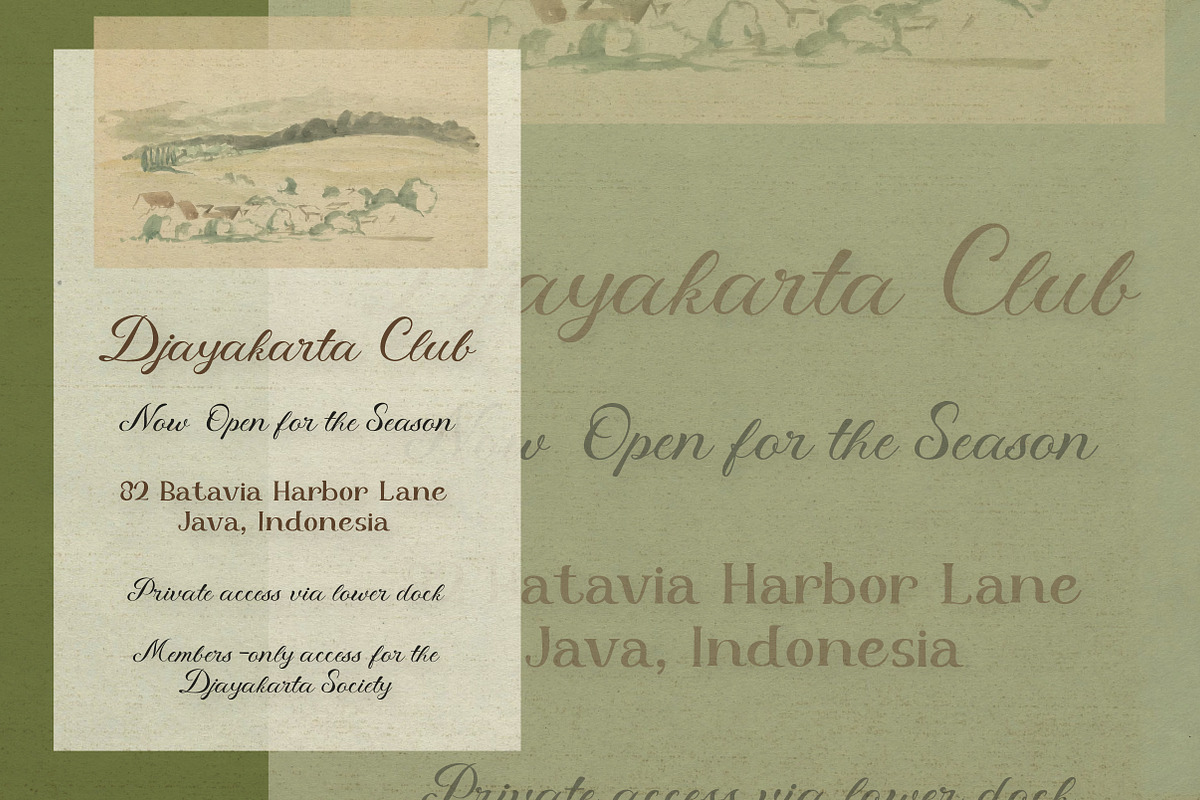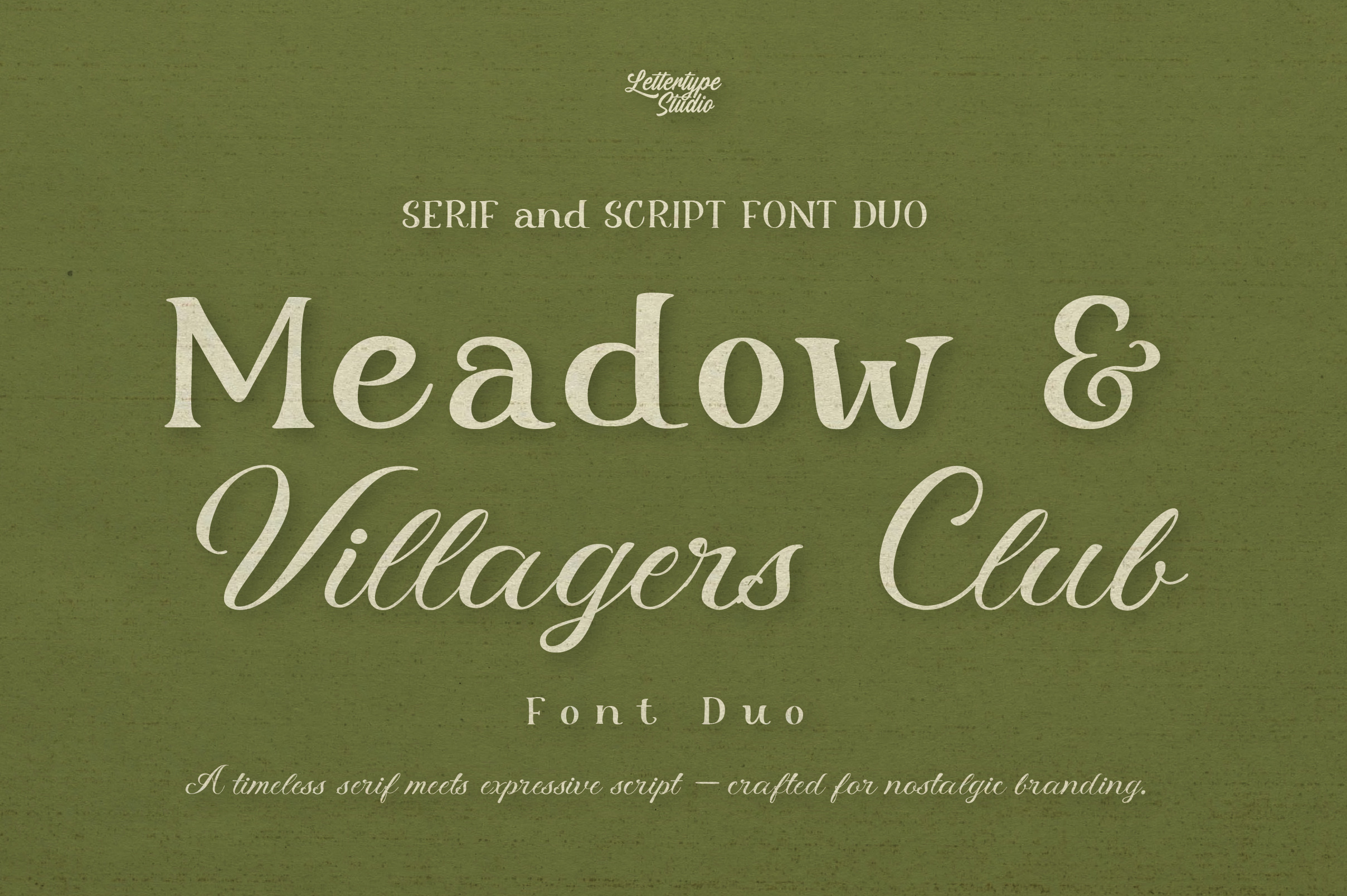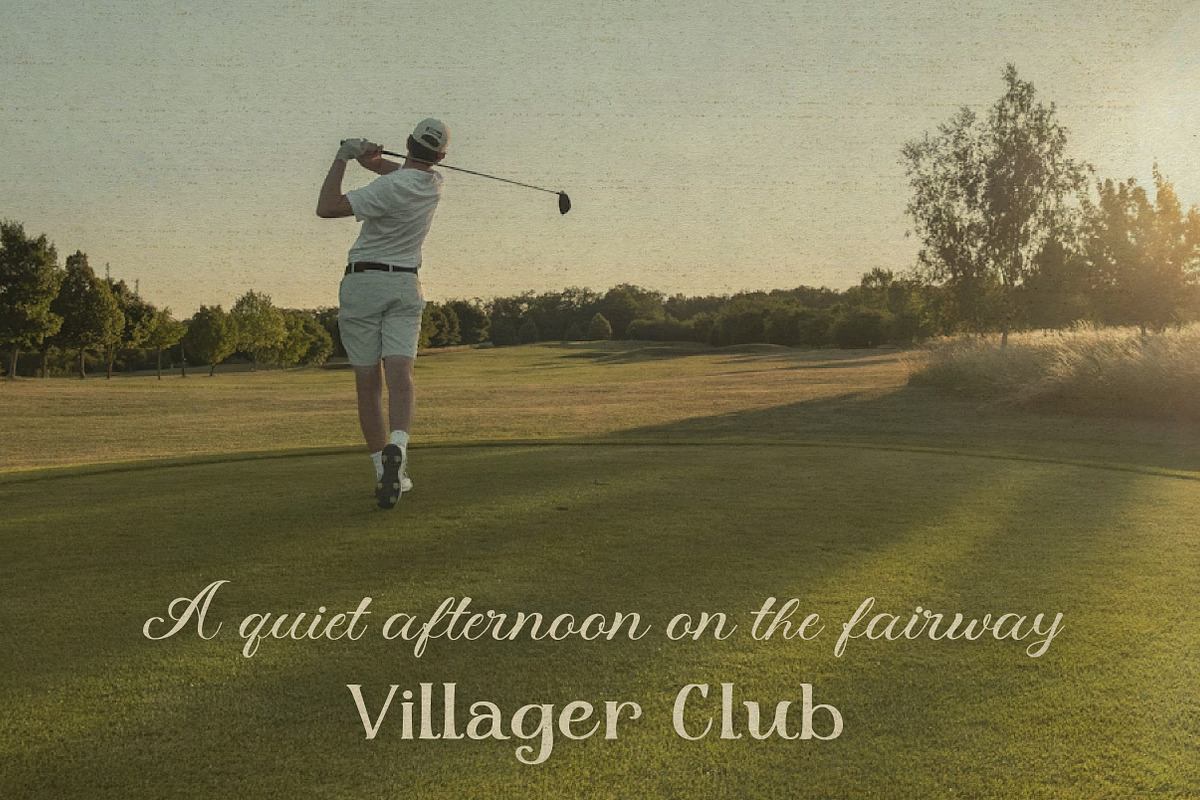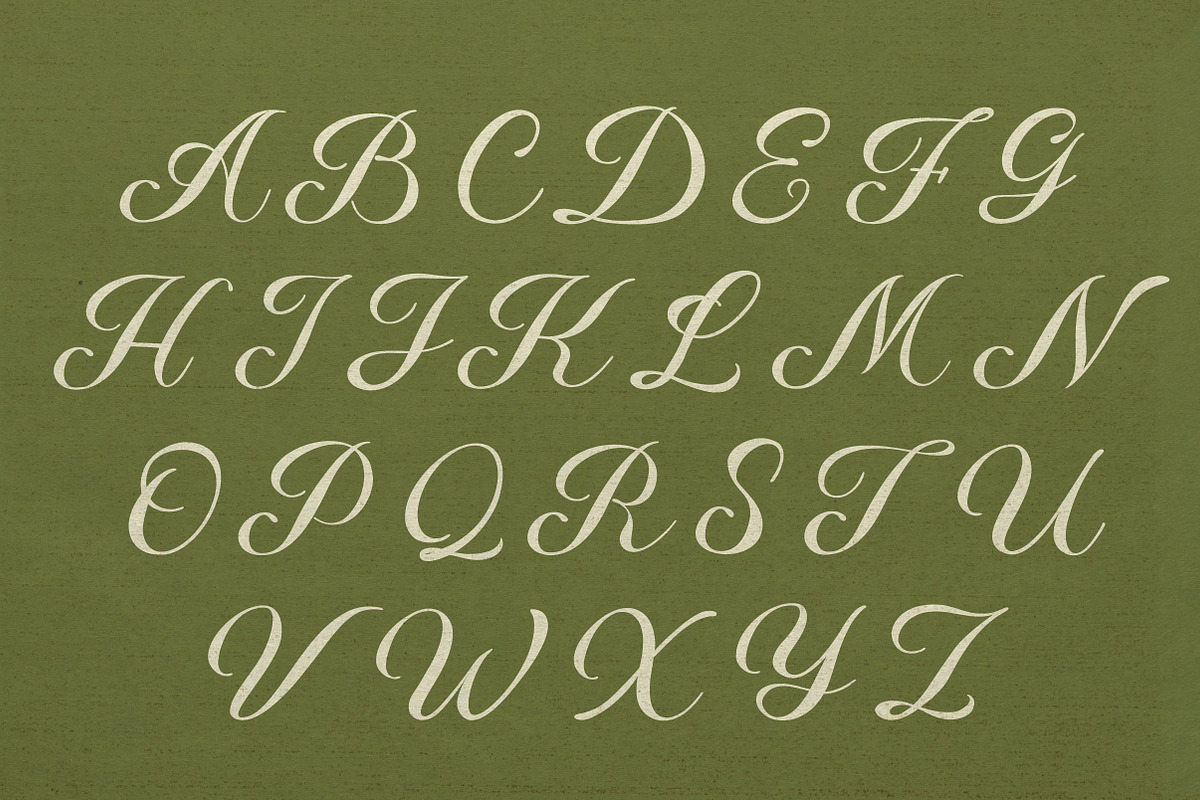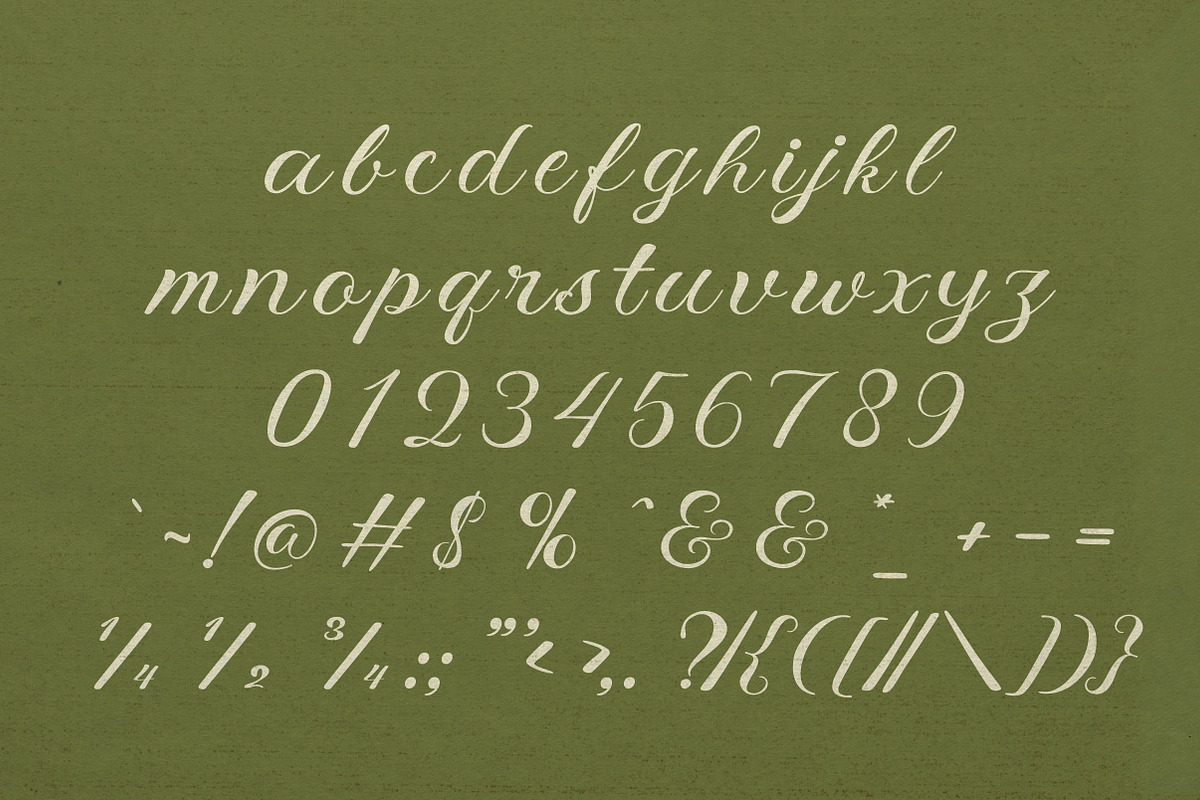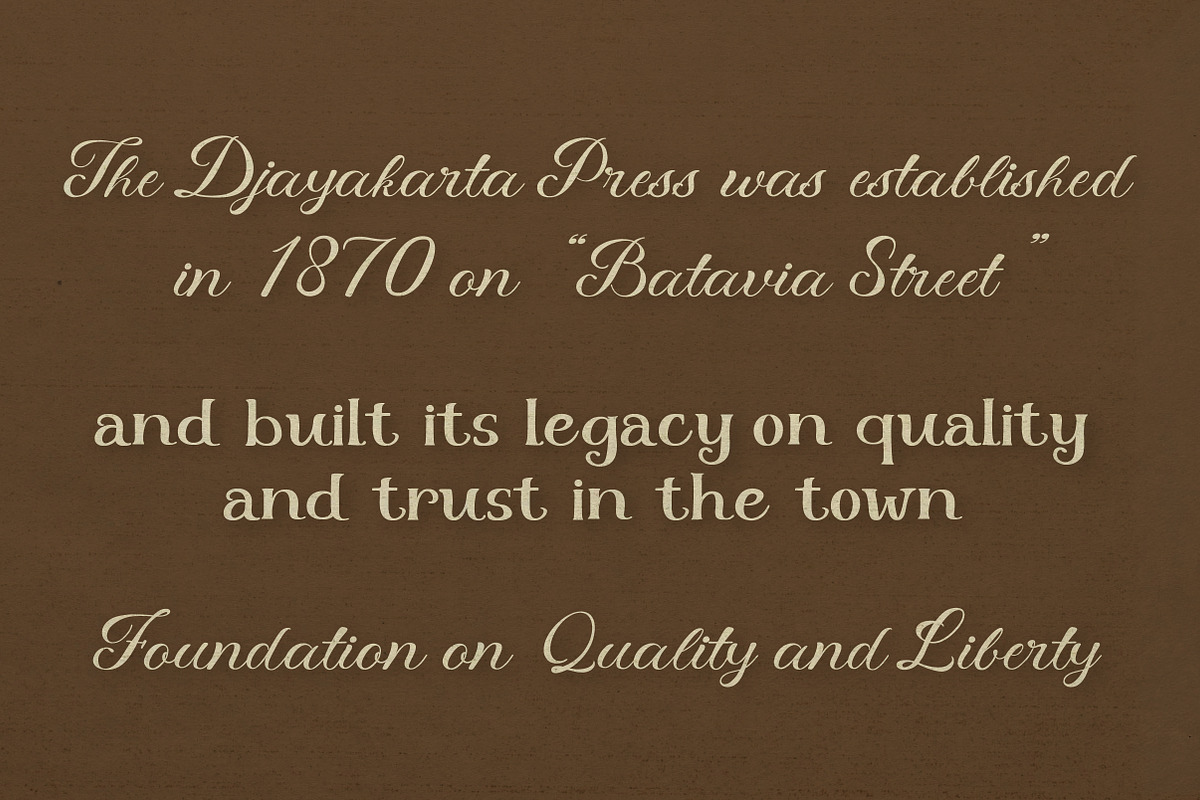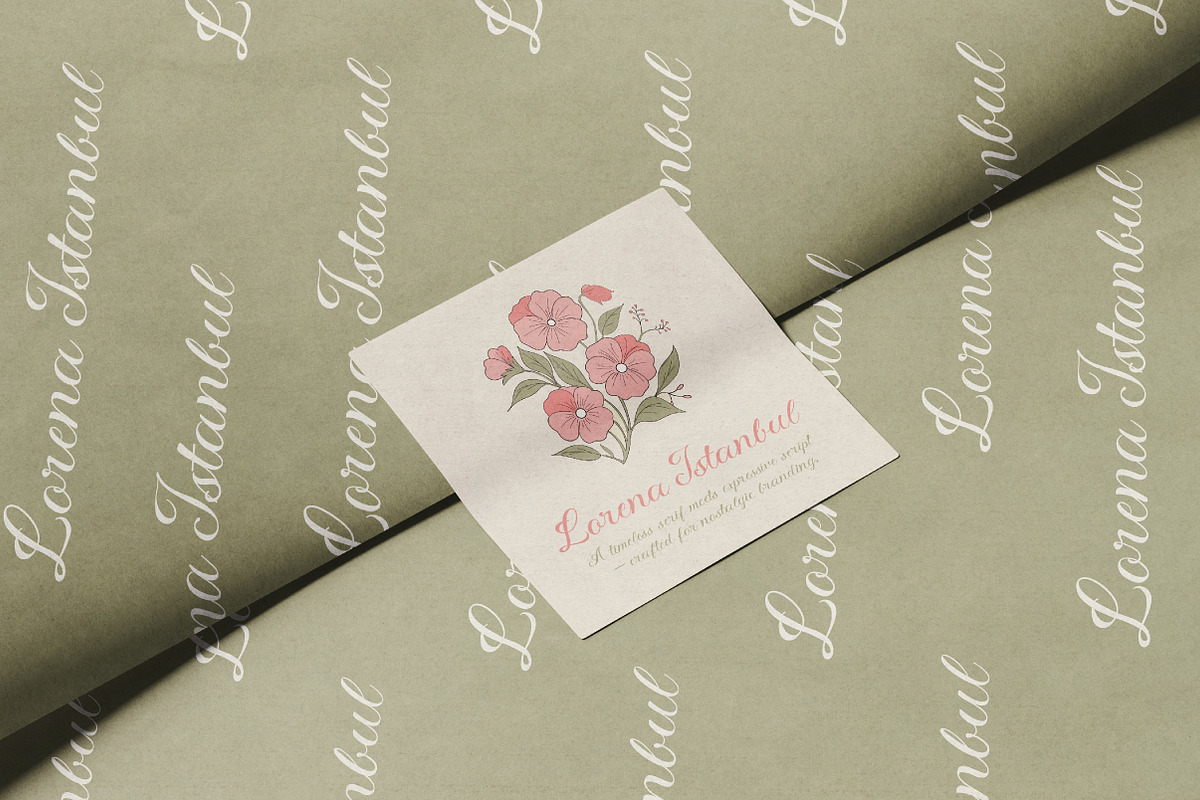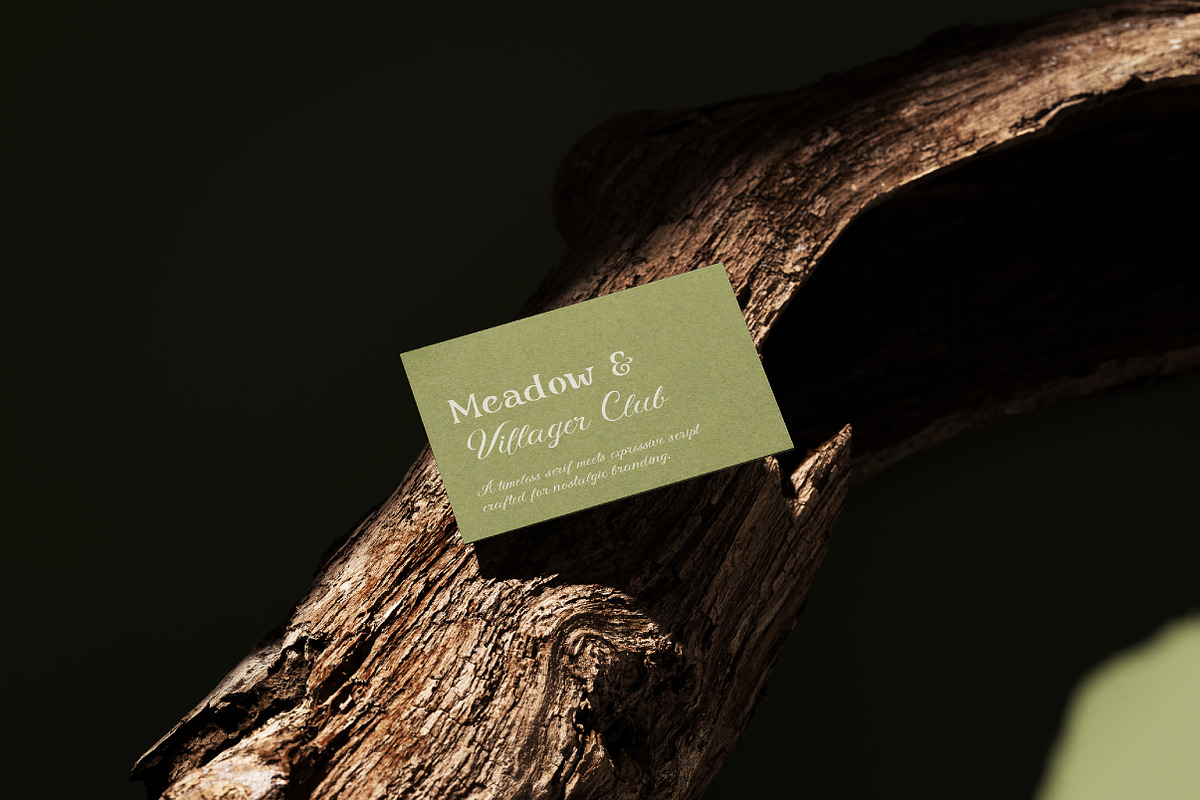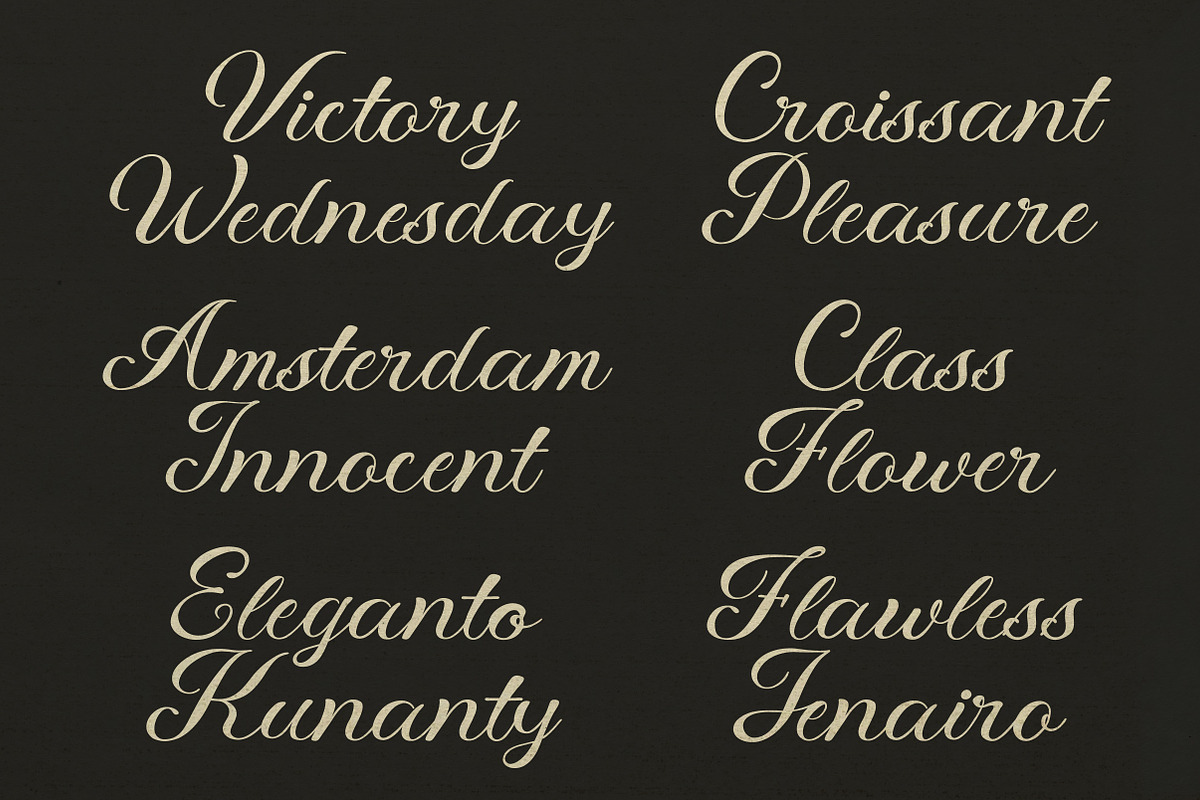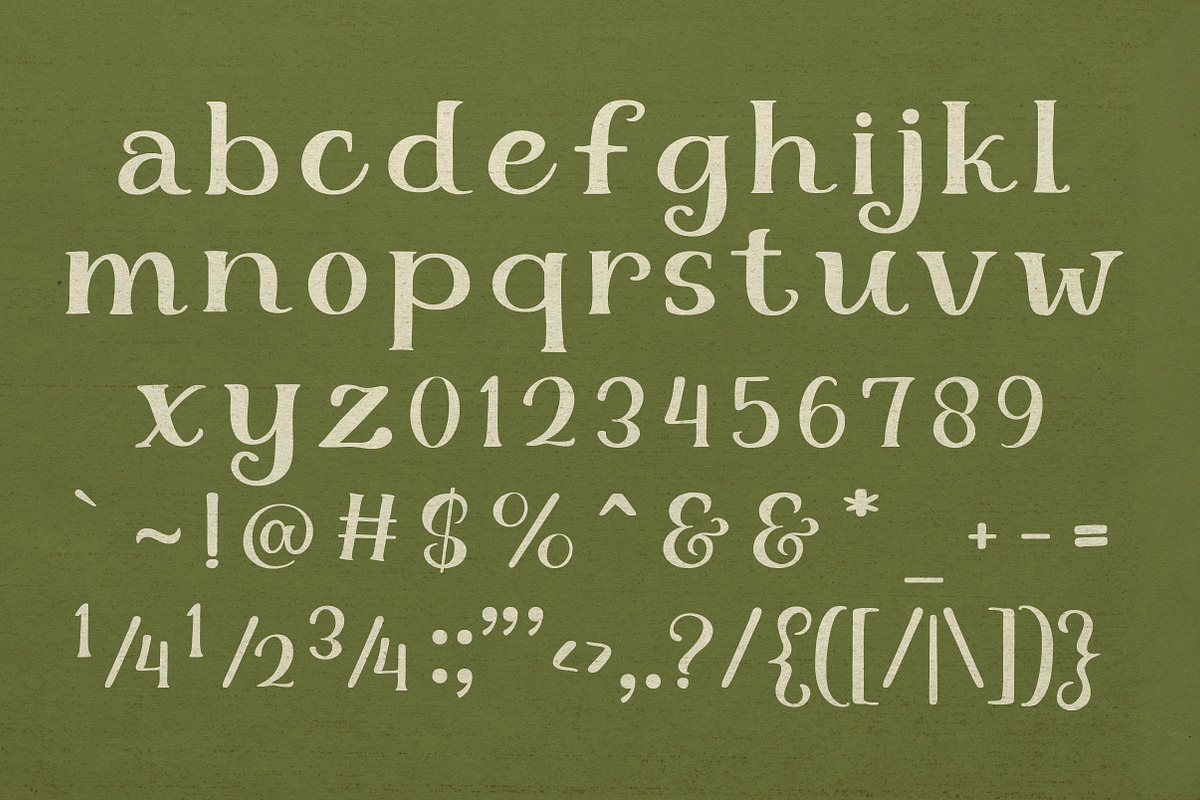
Meadow & Villager Club - Font Duo
Meadow & Villager Club is a thoughtfully crafted font duo that blends a refined vintage serif with a natural, expressive script. Designed to evoke a sense of nostalgia and warmth, this pairing captures the essence of countryside living, artisanal branding, and timeless editorial design. The serif delivers structure and elegance, while the script adds a personal, handcrafted touch—creating a perfect visual harmony.
Ideal for designers seeking both sophistication and personality, Meadow & Villager Club offers versatility across a wide range of creative projects. Whether used for branding, packaging, or wedding design, this duo creates a balanced typographic system that feels both classic and alive.
Meadow & Villager Club Features:
2 Fonts (Handmade Serif & Beautiful Script)
Refined vintage serif paired with a smooth, expressive handwritten script
Standart Ligatures: ff, fi, fl, ffi, & ffl
462 Glyphs Total (Serif) & 434 Glyphs Total (Script)
260+ Languages Supported
Wedding Invitations & Stationery
Café & Artisan Branding
Packaging & Product Labels
Editorial & Magazine Layouts
Logo & Visual Identity Design